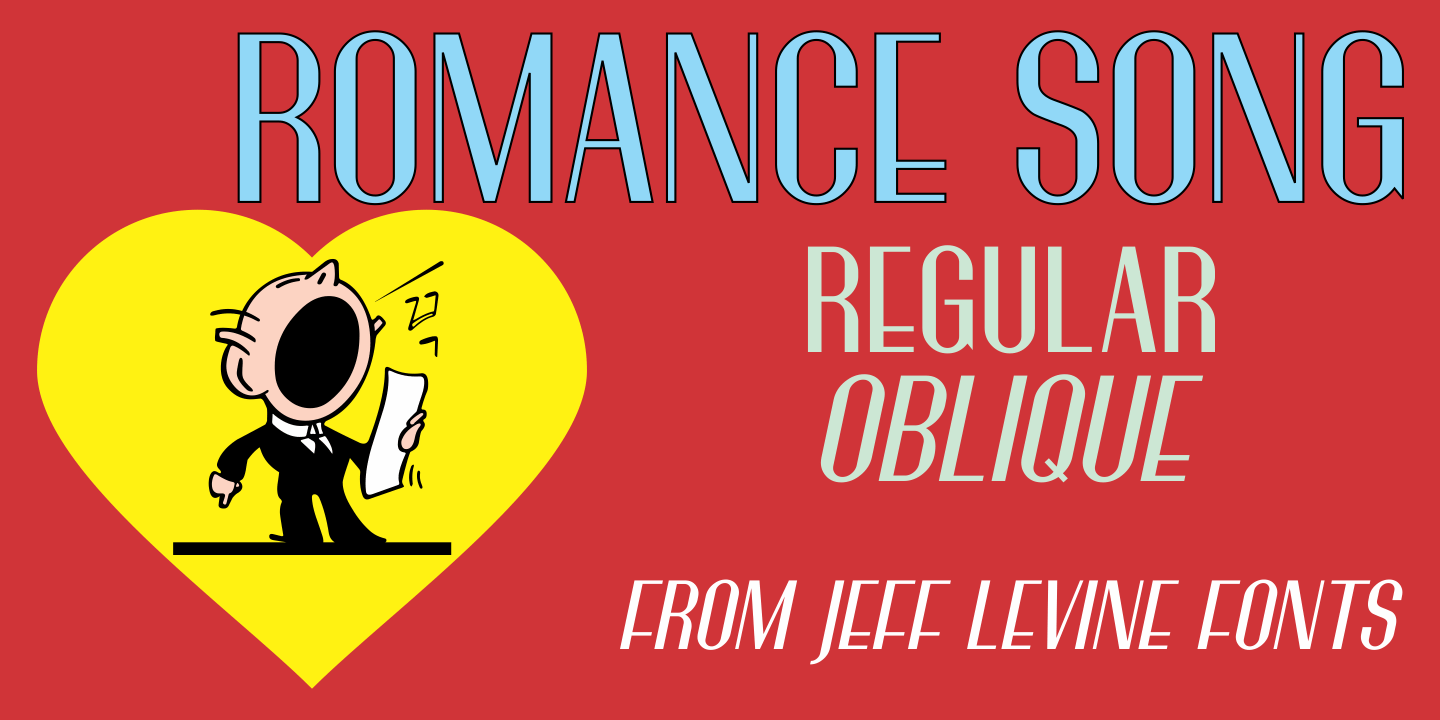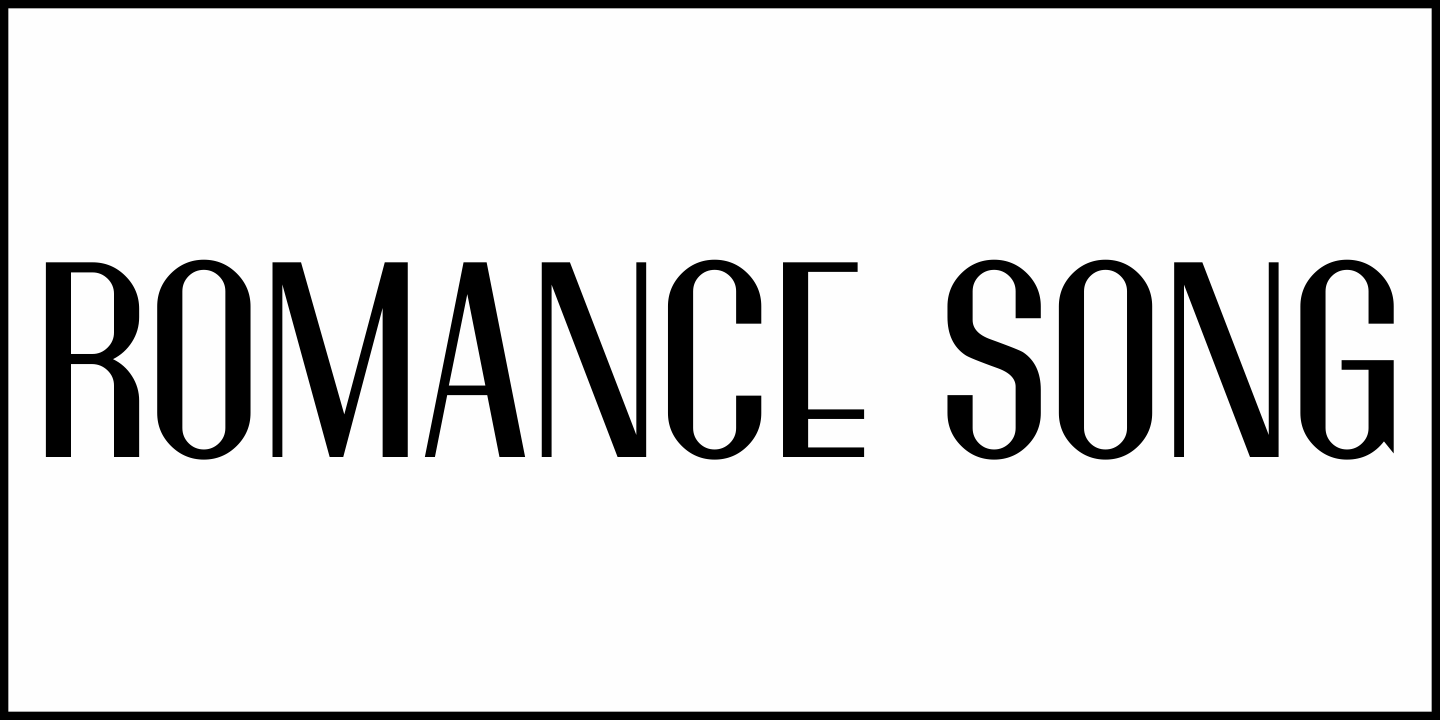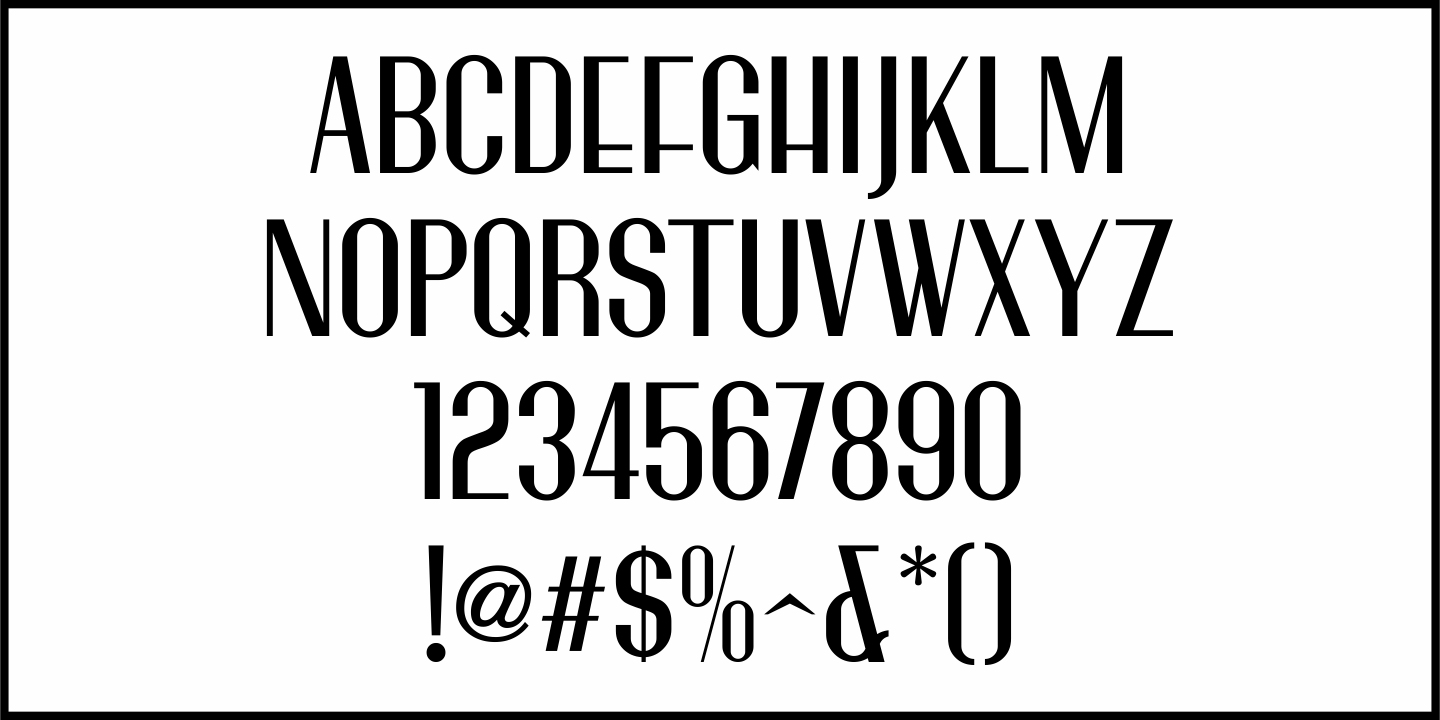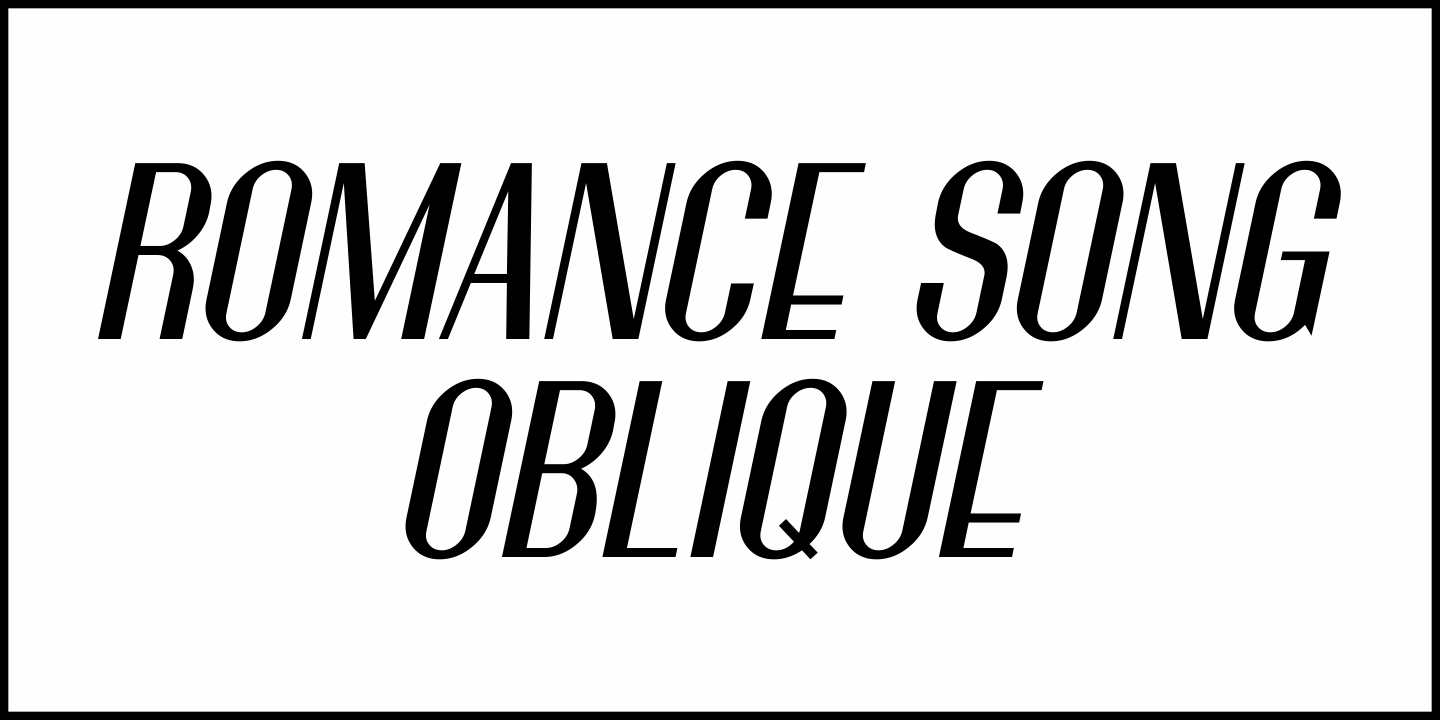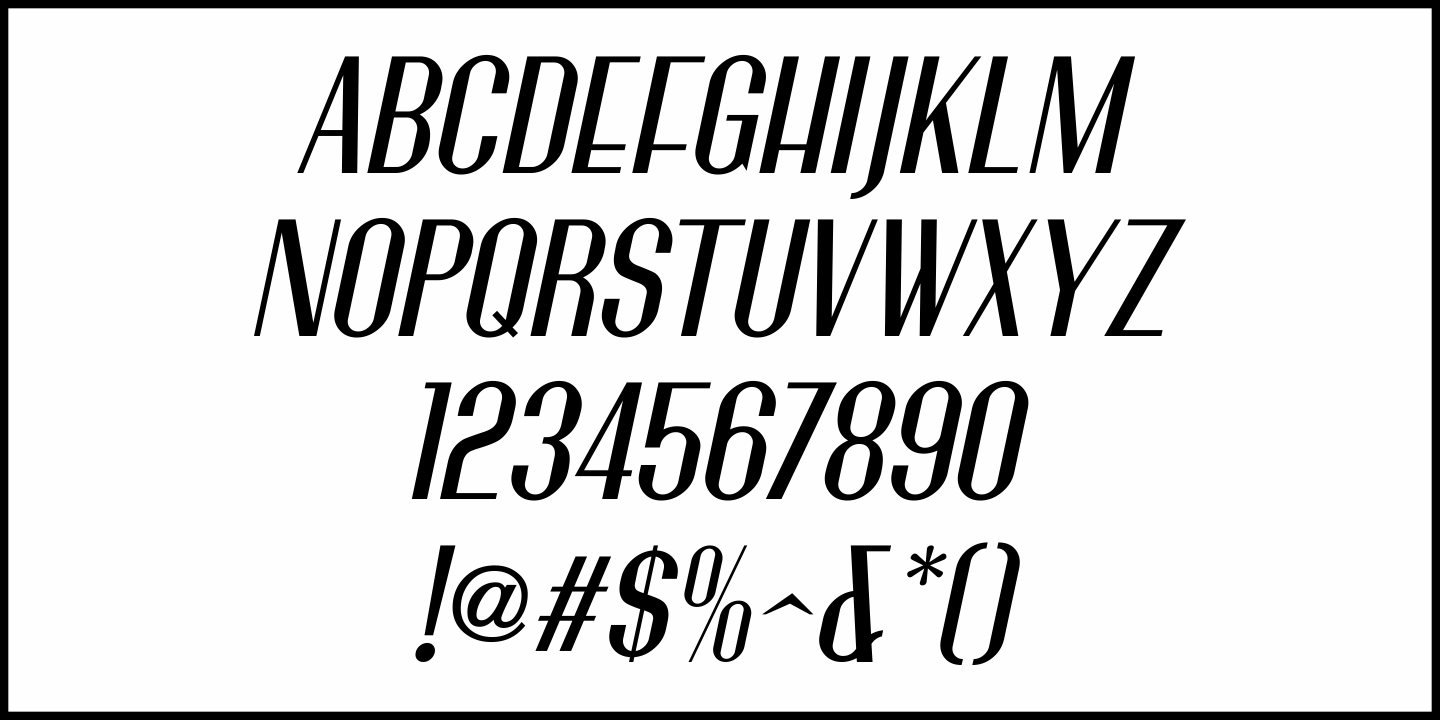
Romance Song
The hand lettered Art Deco sans serif lettering used for the opening titles of the 1941 melodrama “Penny Serenade” (starring Cary Grant) inspired a digital revival.
Romance Song JNL is available in both regular and oblique versions.